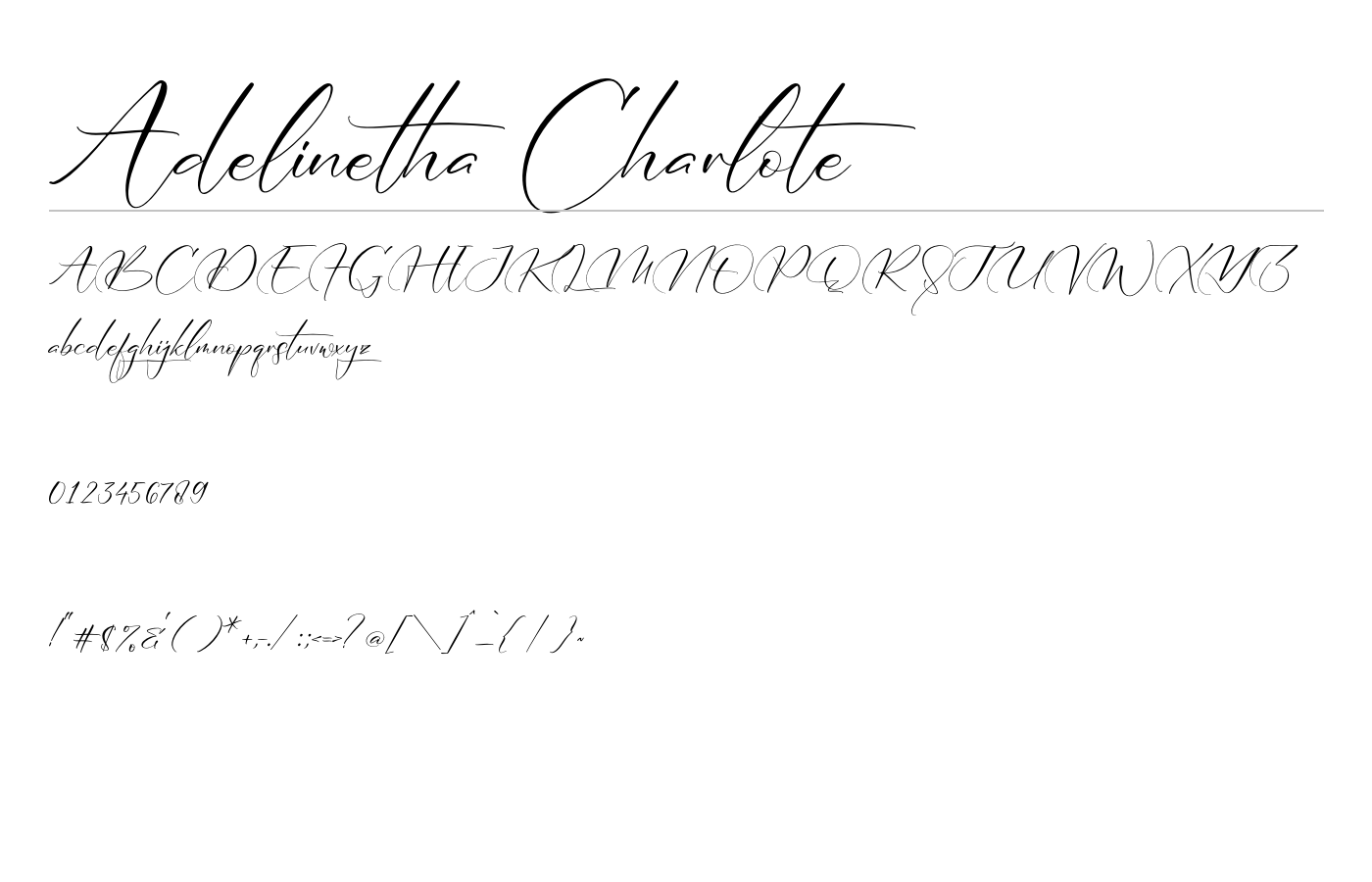
Adelinetha Charlote is an elegant, thin script font with delicate, flowing strokes that evoke a sophisticated and graceful feel. Its tall, airy letterforms and fine lines make it perfect for luxury branding, wedding invitations, and stylish editorial use where a refined, personal touch is desired. This font works best in large sizes to highlight its beautiful calligraphic details and feminine charm.
Adelinetha Charlote Font
About Adelinetha Charlote Font
| Designer | Nanang Jamaludin |